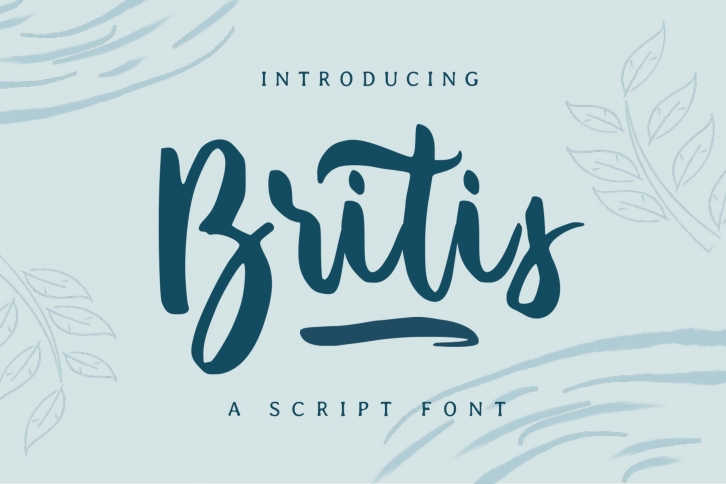
Britis is a beautiful font that was designed by sancrea. It's a great choice for designers and creatives who need such a font. It was released on July 15, 2020 and the file size is 8.45 MB. Britis may give a more youthful, expressive and casual look to your project. It is a very beautiful, refined, elegant, and high-quality font.